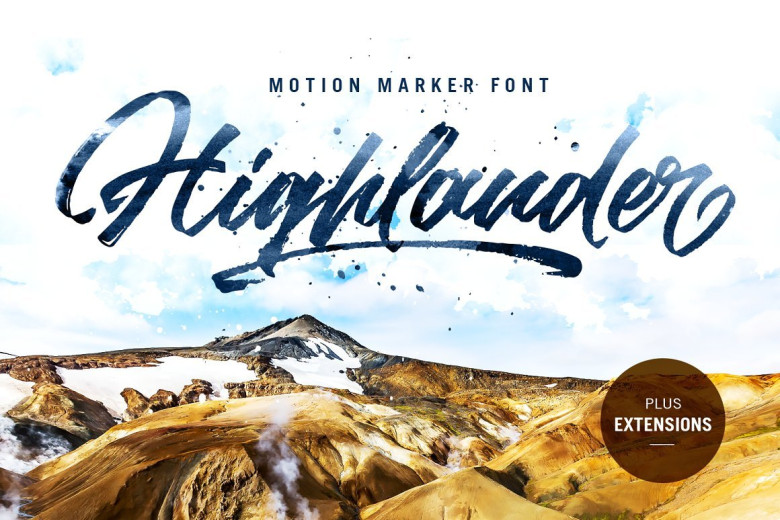
Highlander Brush Font
Introducing Highlander! It is designed by Kavoon, this is a premium font, are sold on Creativemarket, but it was great, it is free today for download. Highlander comes with a full set of upper and lower case characters – giving you the extra freedom to turn your text into authentic custom-made hand lettering. Highlander font Includes a large range of glyphs including numerals, punctuation & multilingual support. Also included is a bonus extras font, which consists of Extentions designed to perfectly compliment your primary text.